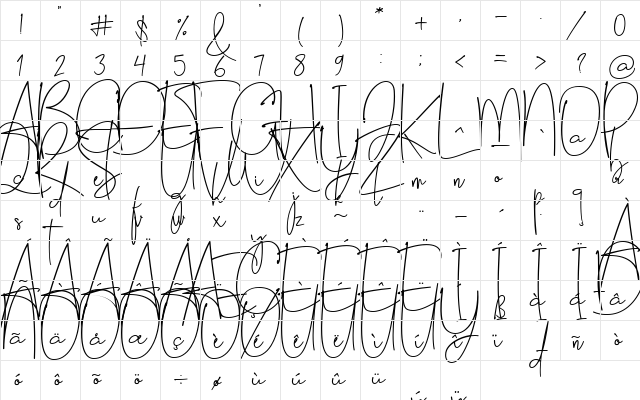
Alessandria Regular Font Preview
Alessandria Regular
Alessandria Regular Font Details
| Foundry | StudioAKTYPE |
| Designer | Jani Nurman |
Design Context for Alessandria Typeface
Alessandria is a composed and adaptable typeface that performs quietly and consistently across a wide range of design contexts.